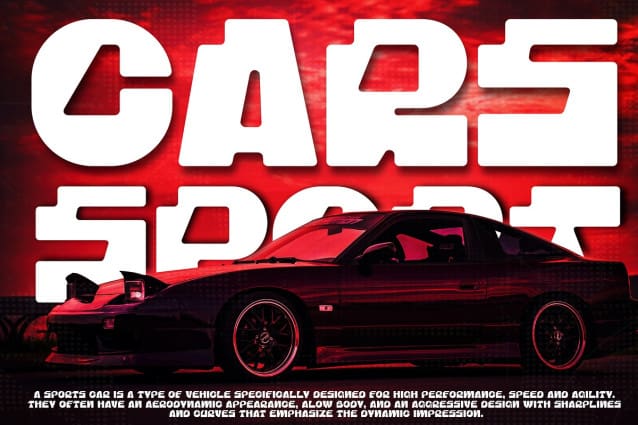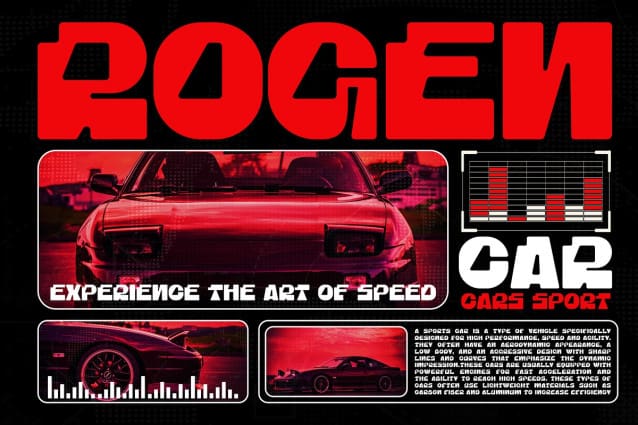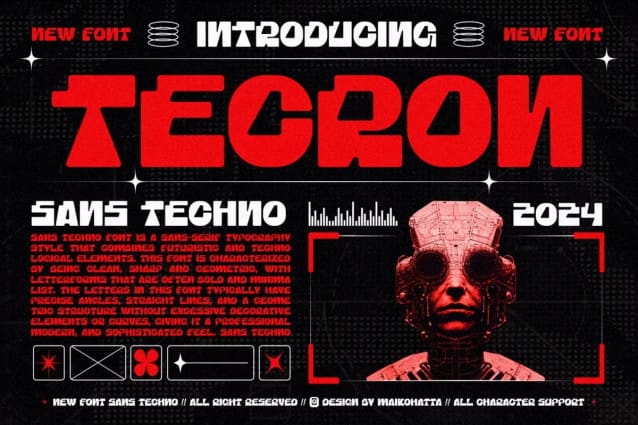
Tecron Display Font
Tecron Display Font: is a futuristic typeface inspired by cutting-edge technology. This font reflects the digital age and technological advancements, bringing a sense of modernity, innovation and energy to any design. With its sharp lines, geometric letterforms and futuristic elements, this font is suitable for projects related to technology, robotics, science and modern lifestyle. This font is often found in logos, website designs, posters and other creative projects that require a futuristic touch.